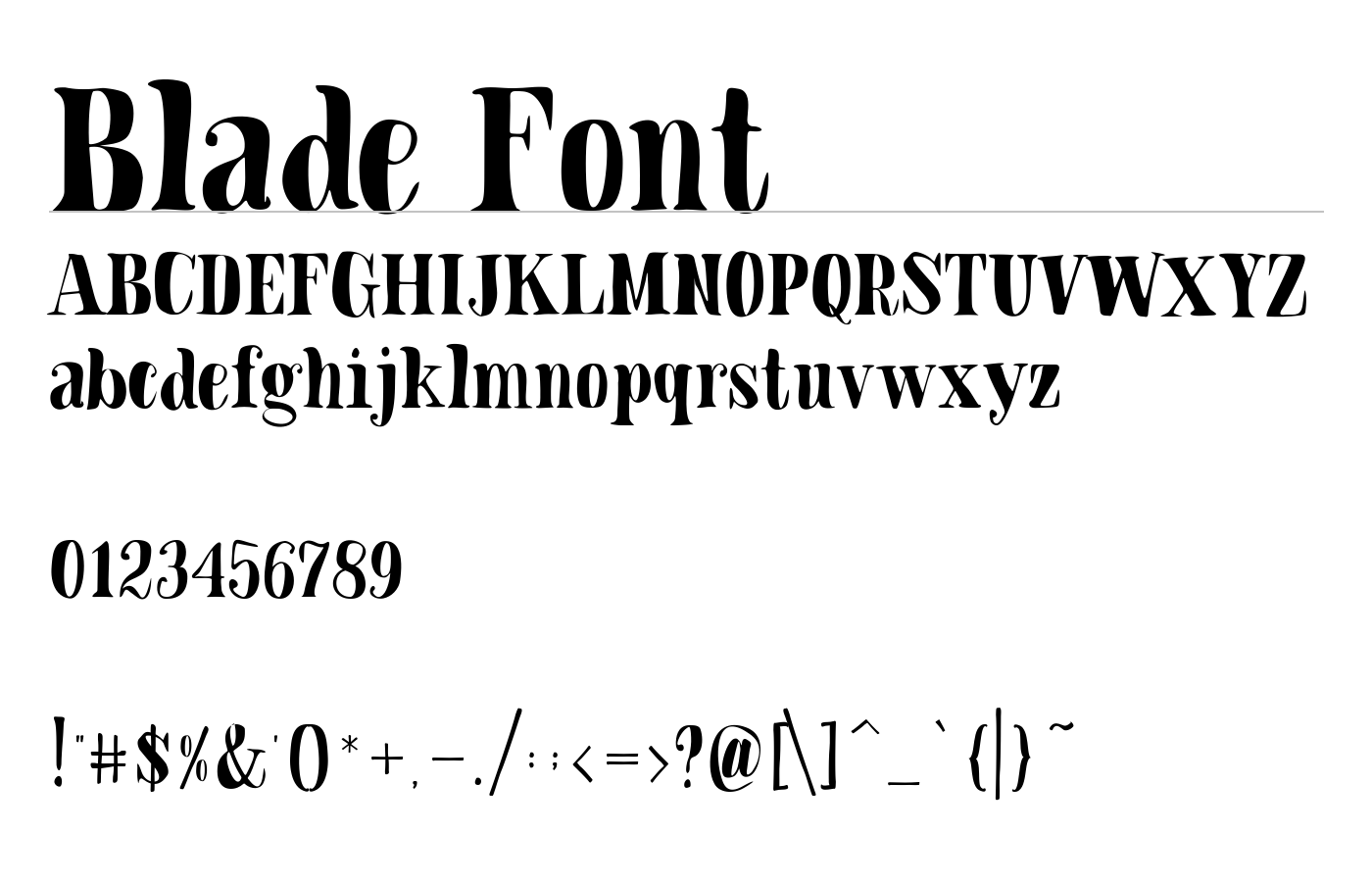
Blade Font is a bold serif typeface with a vintage flair, characterized by its high contrast strokes and slightly condensed letterforms. Its sharp, bracketed serifs and distinctive curves create an elegant yet strong presence, making it ideal for striking headlines, logos, and branding that seek to convey a classic, confident style. Perfect for editorial layouts or packaging, it balances sophistication with readability for impactful visual communication.
Blade Font
About Blade Font